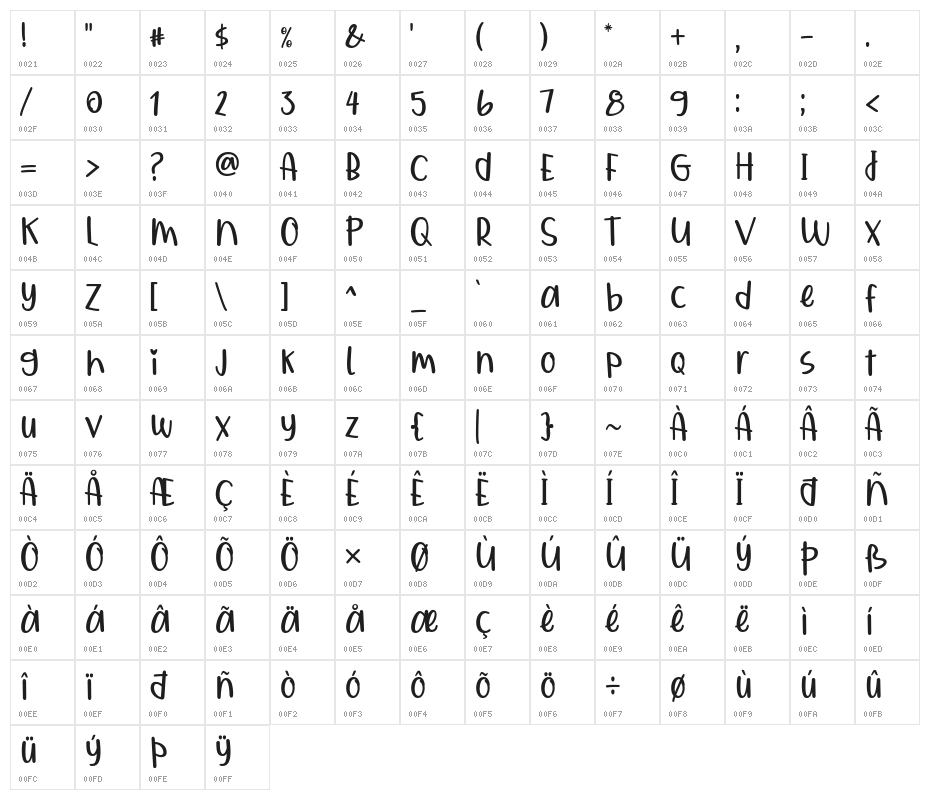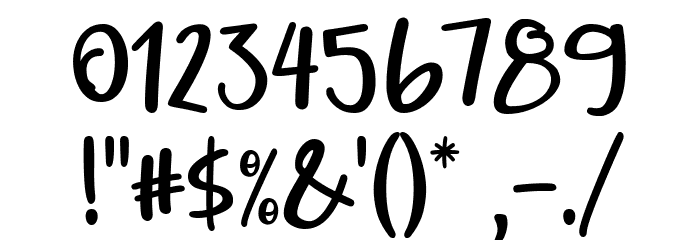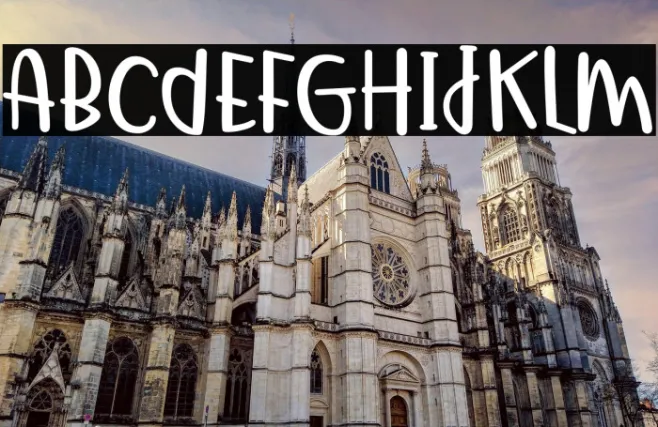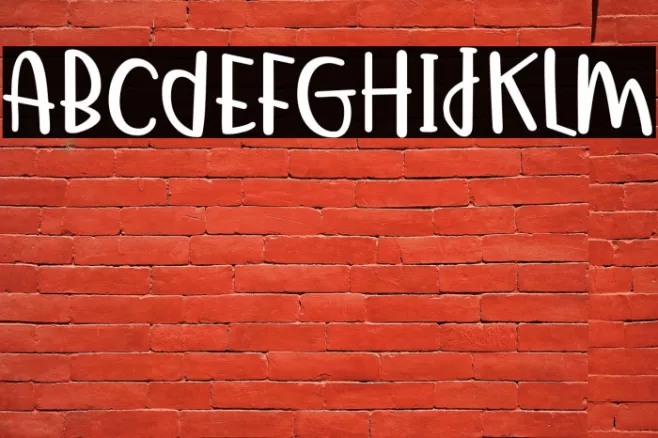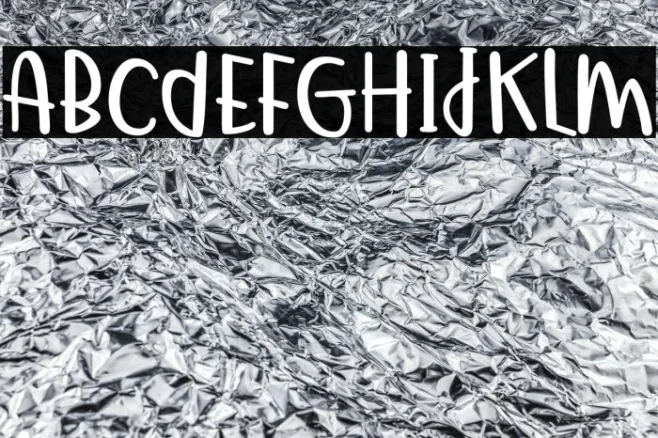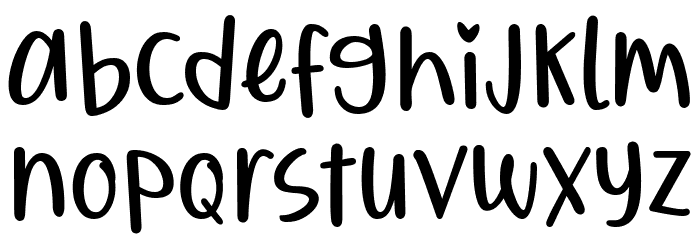
Qiyoshi Font
Qiyoshi Description
This playful and whimsical font features a handwritten style with a casual, friendly appearance. The letters are slightly rounded with a consistent stroke width, giving it a smooth and approachable feel. The uppercase and lowercase characters maintain a uniform look, while the numerals and special characters complement the overall design. Its informal nature makes it suitable for creative projects that require a touch of personality and warmth.
| Use Case | Logos, Invitations, Social Media Posts |
| Proposed Projects | Ideal for greeting cards, children's books, playful branding, and social media graphics. |